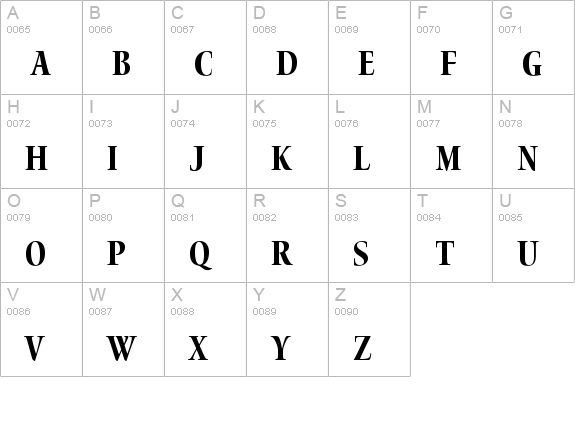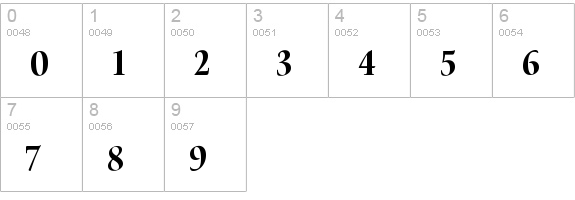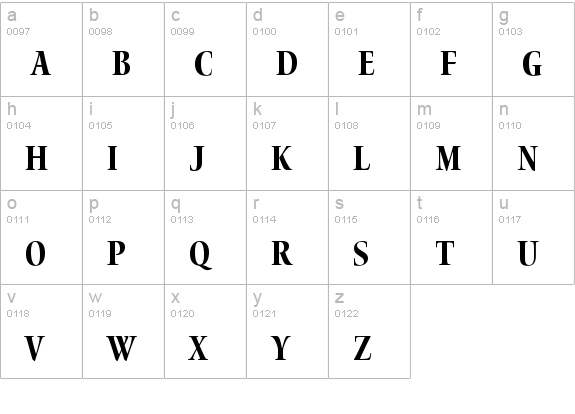
Waters Titling Pro Bold Condensed Font Details
Waters Titling Pro Bold Condensed is a strong, high-contrast, condensed-width variant in the Waters typeface family \xE2\x80\x94 well suited to headlines, attention-grabbing titles, and strong calls-to-action.
Waters Titling Pro Bold Condensed font is a striking and powerful typeface that exudes confidence and modernity. With its bold and condensed design, it commands attention and makes a bold statement in any project. This font is perfect for headlines, titles, and display designs that require a strong and impactful visual presence. Its condensed nature allows for maximum impact in limited space, making it ideal for posters, banners, logos, and packaging designs. The sleek and clean lines of Waters Titling Pro Bold Condensed font give it a contemporary and professional look, making it suitable for a wide range of projects, from corporate branding to editorial layouts. Its versatility allows it to adapt to various design styles and themes, ensuring that it can be seamlessly integrated into any creative endeavor. One of the most appealing aspects of Waters Titling Pro Bold Condensed font is that it is available for free download at FontsMarket.com. This means that you can easily access and enjoy the benefits of this exceptional typeface without any cost. Whether you are a professional designer or a typography enthusiast, this free font offers a valuable addition to your font library. So, if you are looking for a bold and condensed font that combines style, impact, and versatility, look no further than Waters Titling Pro Bold Condensed font. Download it for free at FontsMarket.com and elevate your designs to new heights with this remarkable typeface.